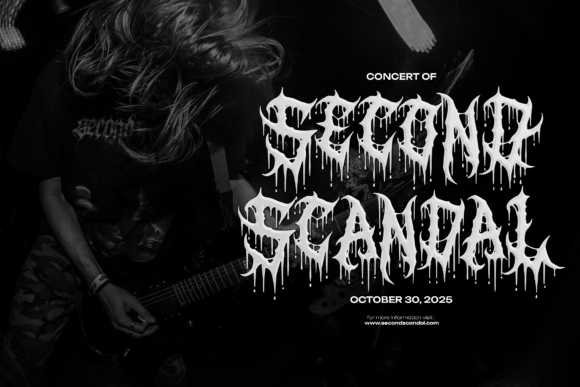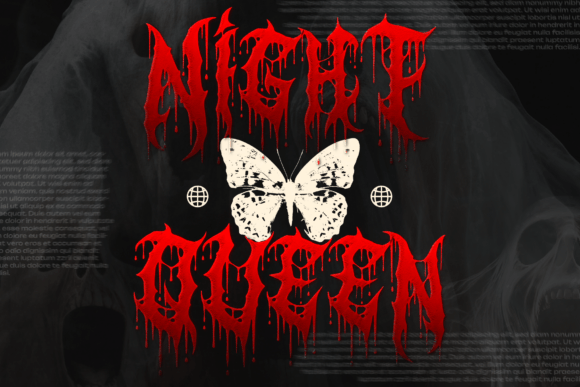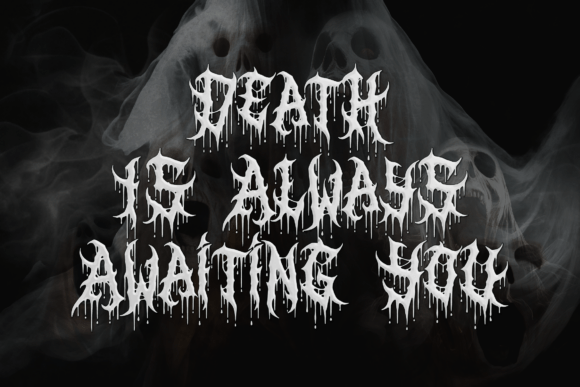
Introduction to Reign Crimson Font
Reign Crimson is a black metal font, suitable for any projects such as: logos, branding projects, homeware designs, product packaging, mugs, quotes, posters, shopping bags, t-shirts, book covers, name card, invitation cards, greeting cards, label, photography, watermark, special events, and all your other lovely projects that need a Black Metal Font taste.
Key Features of Reign Crimson Font
Why Choose Reign Crimson Font?
Reign Crimson Font offers exceptional quality and versatility, making it a valuable addition to your design toolkit. Whether you’re creating for personal projects or commercial use, Reign Crimson Font delivers professional results.